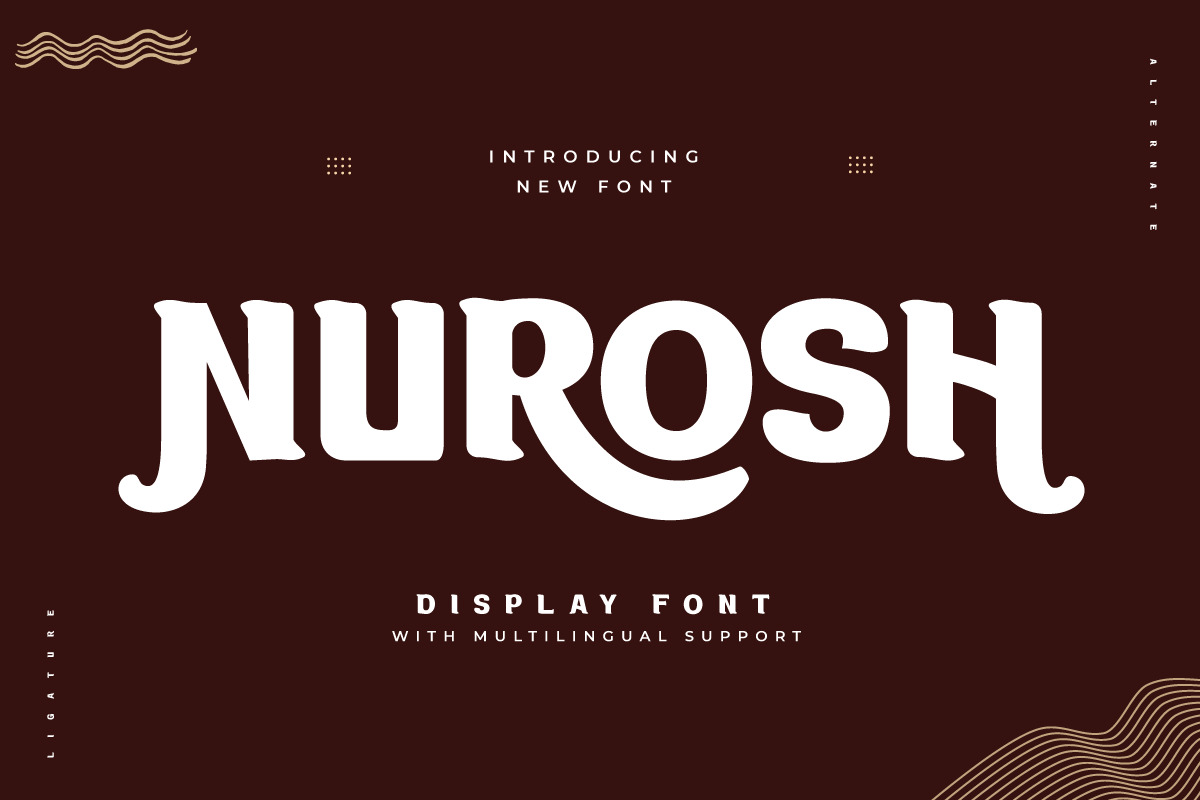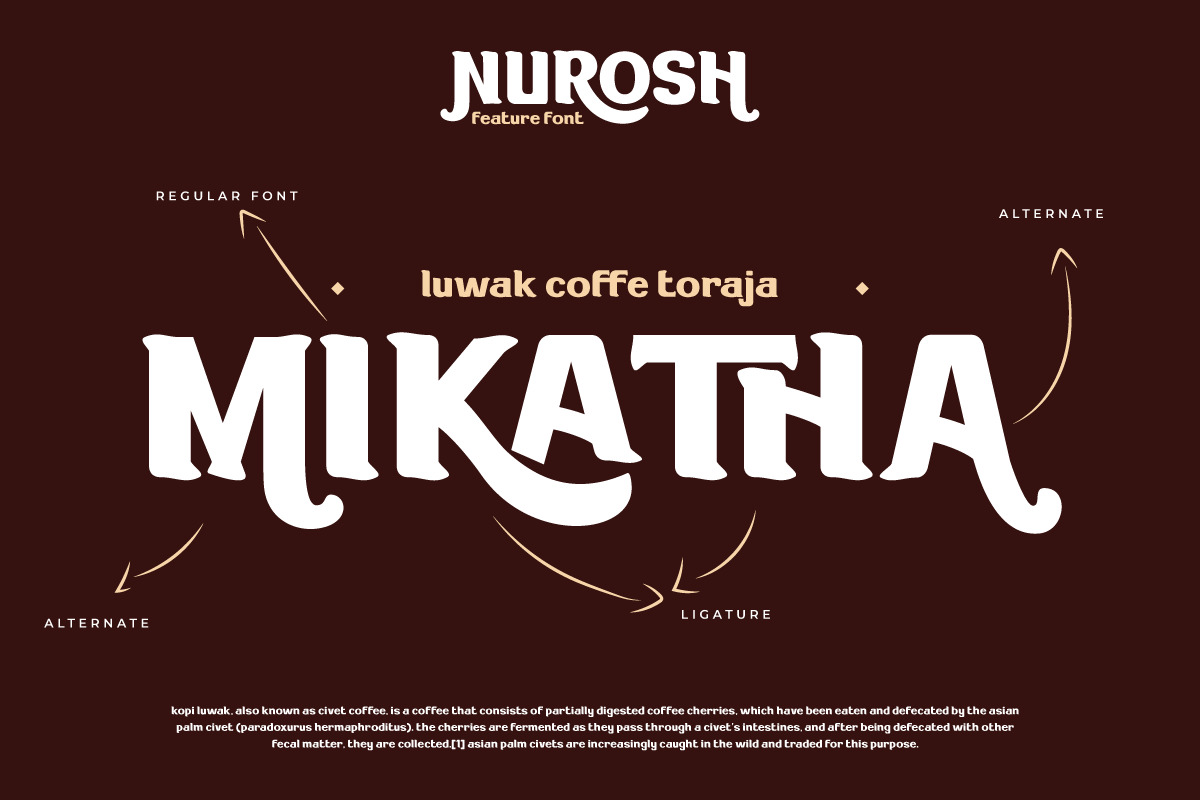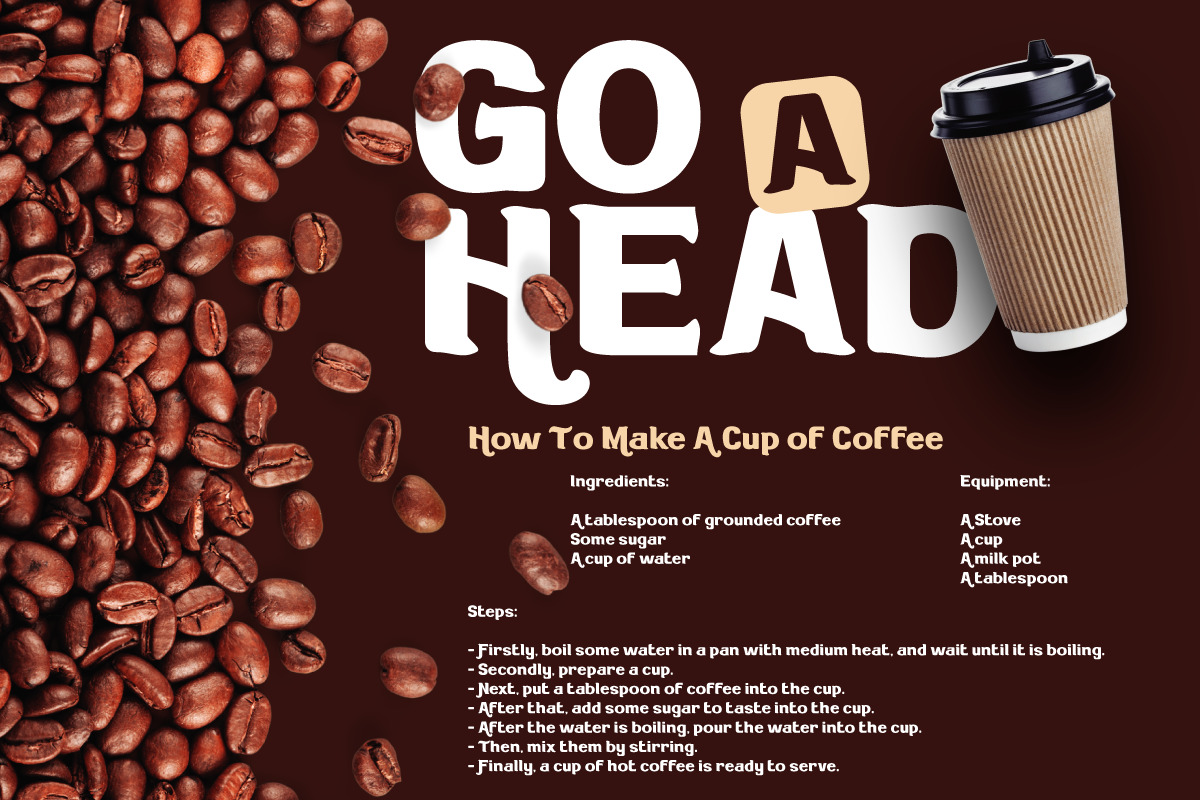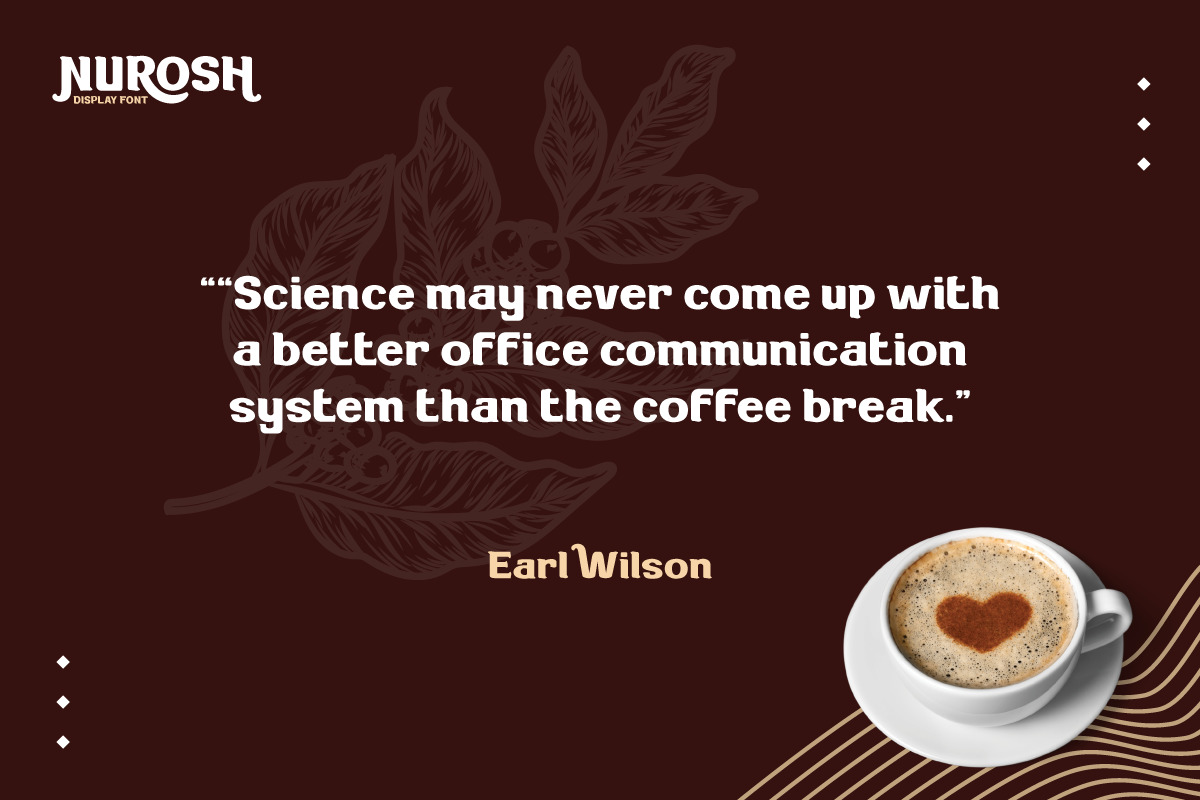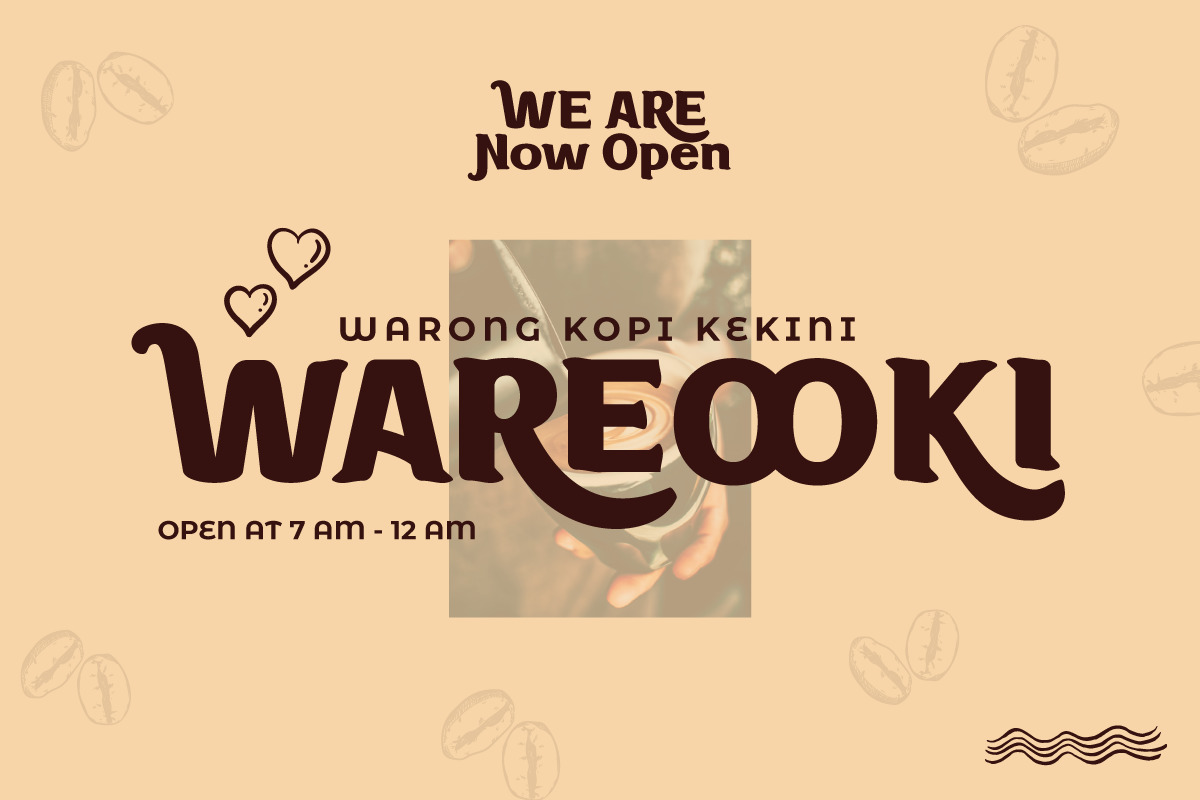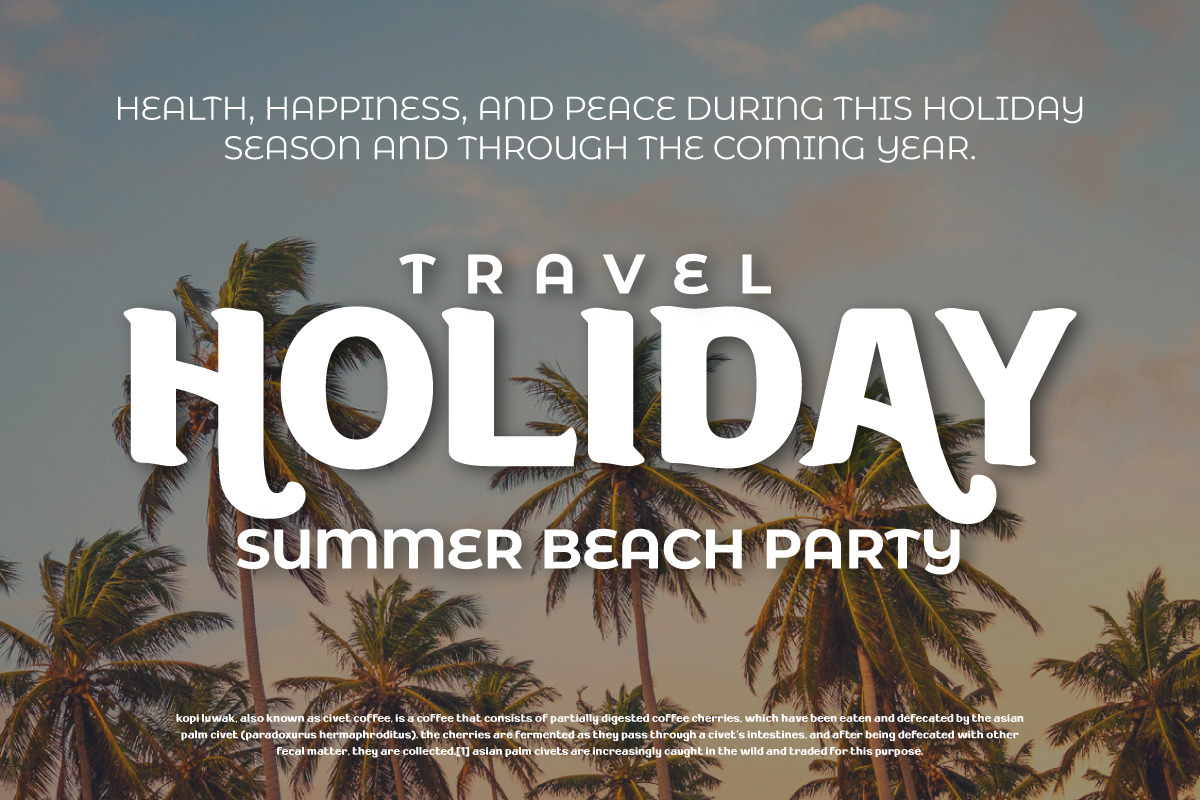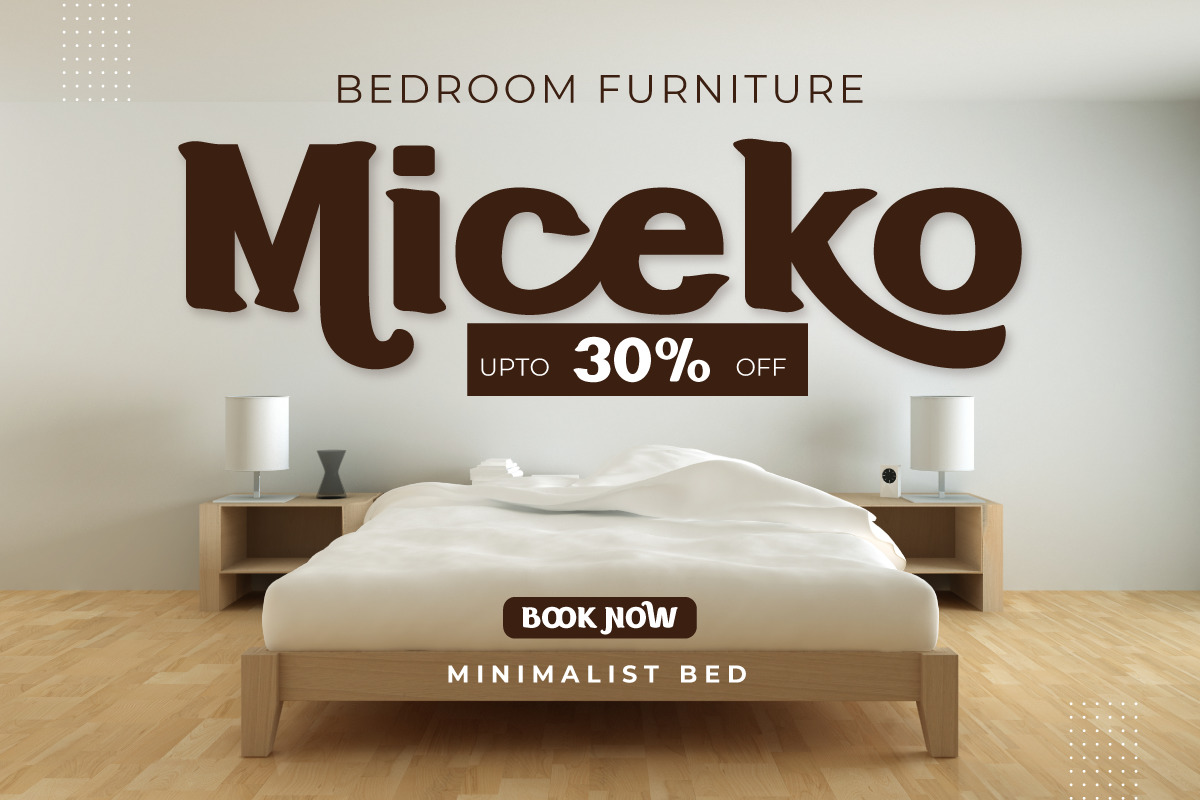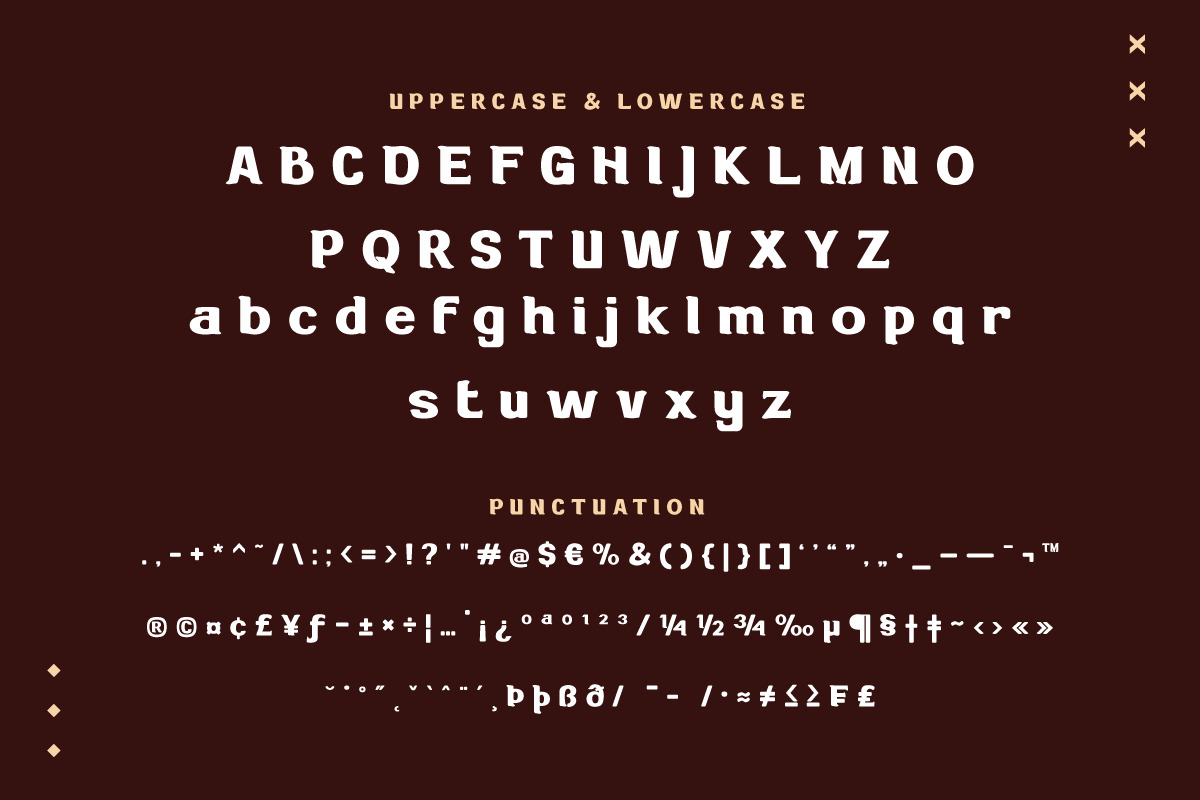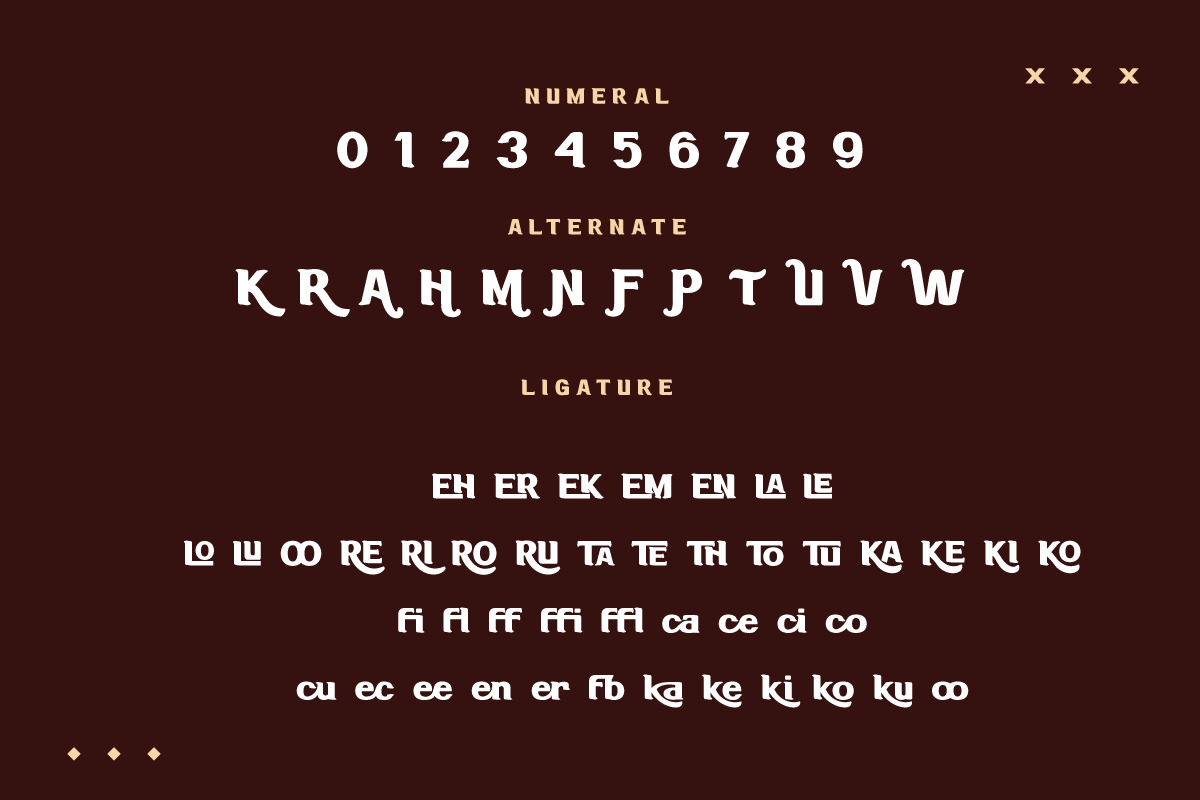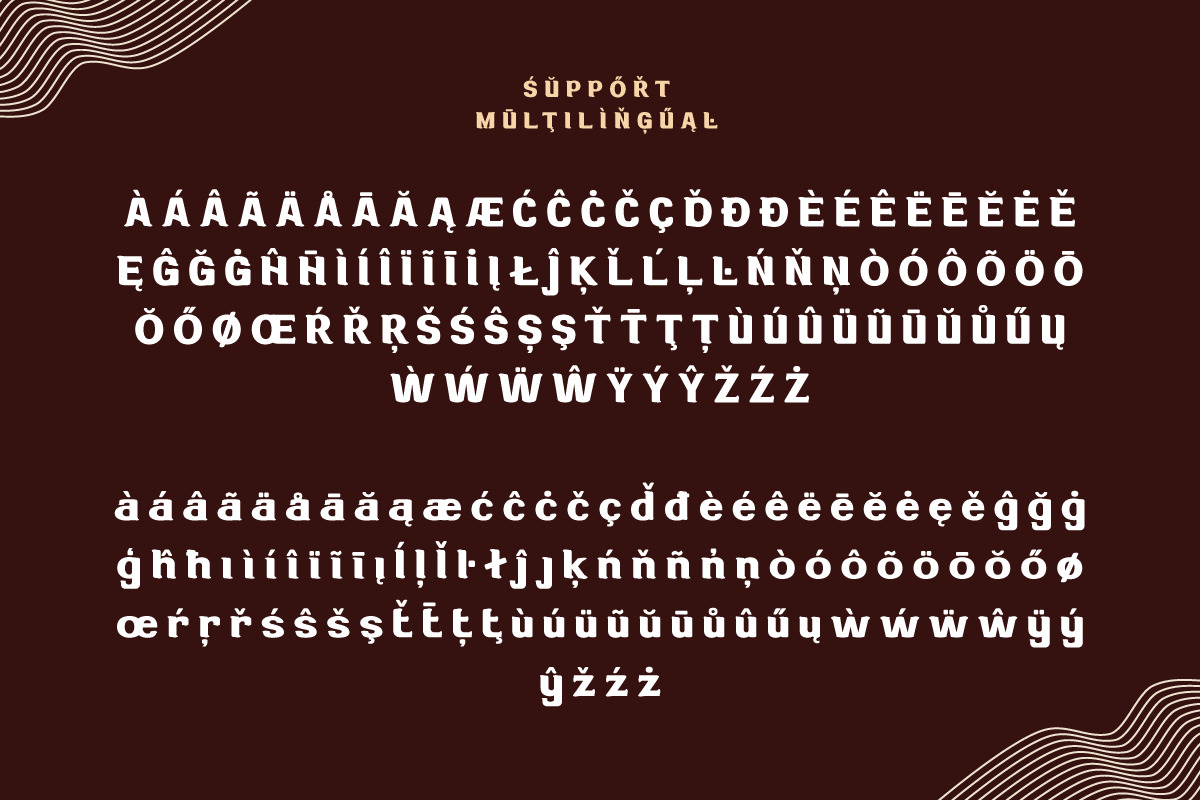
Nurosh - San Serif Display Font
Introducing Nurosh Font, a captivating and versatile typeface that will instantly grab the attention of your audience. With its unique and eye-catching design, Nurosh Font is the perfect choice for those seeking a distinctive and attention-grabbing typography solution.
Nurosh Font features elegant and modern letterforms that exude creativity and style. Its sleek lines and contemporary curves make it suitable for a wide range of design applications, including branding, logos, packaging, and more. Whether you're designing a sleek website or a striking product label, Nurosh Font will leave a lasting impression on your potential customers.
With its versatility and visual appeal, Nurosh Font allows you to express your creativity and make a bold statement in your designs. It's the ideal choice for individuals and businesses looking to add a touch of uniqueness and sophistication to their projects.
Don't settle for ordinary fonts when you can make an impact with Nurosh Font. Explore its captivating features and unleash your design potential. Experience the allure and attention-grabbing qualities of Nurosh Font and capture the attention of your potential customers in just 60 seconds.